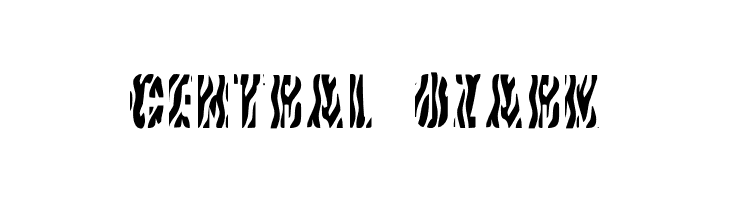
Do not eat this Skew Font
- Font: Do not eat this Skew
A bold, decorative font with cow-hide pattern designs, perfect for playful and creative projects.